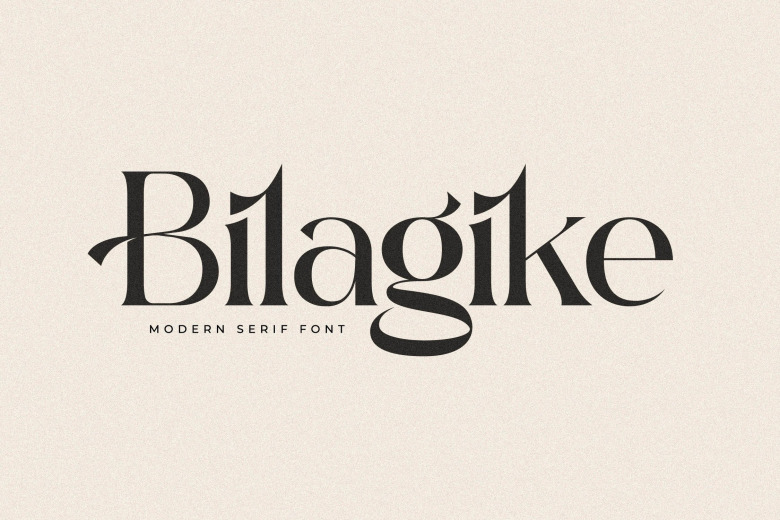
Bilagike Font
Bilagike – modern and classic serif font with a bit unique style and elegant look. This typeface is suitable for creating an elegant & luxury logo, book or movie title design, fashion brand, magazine, clothes, lettering, quotes, and so much more.
Bilagike Serif Font